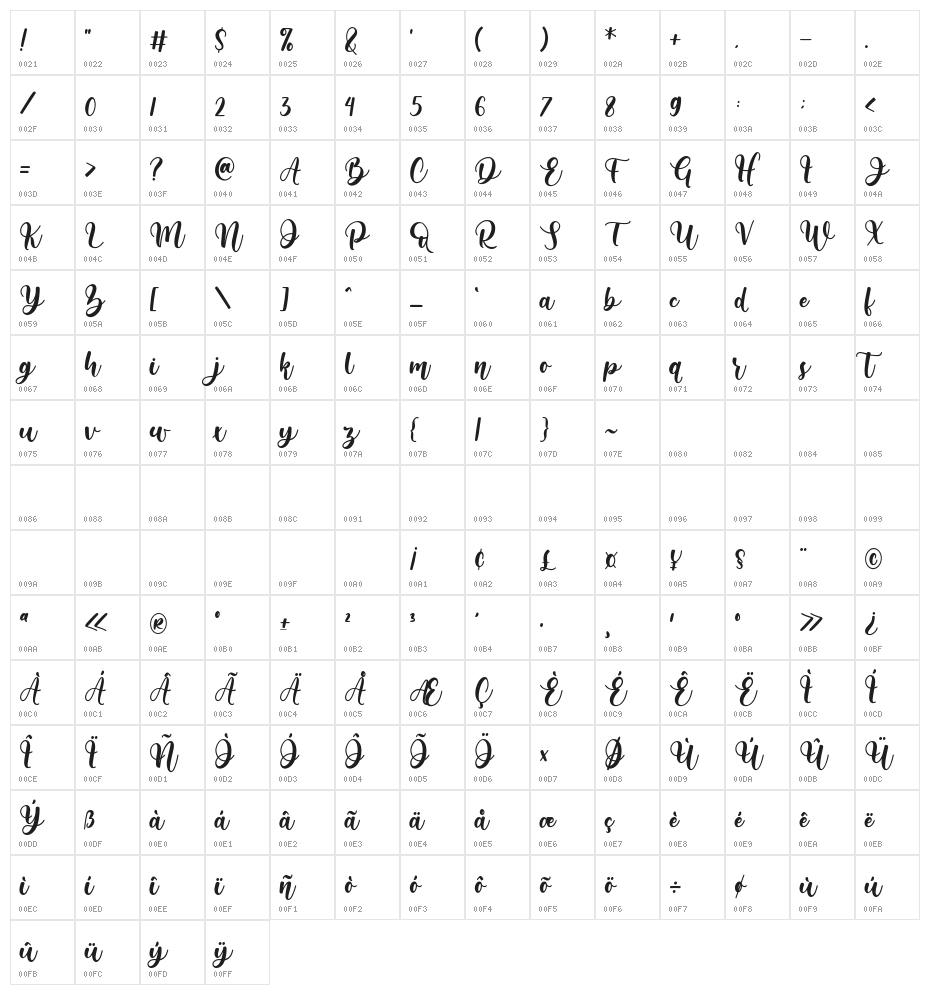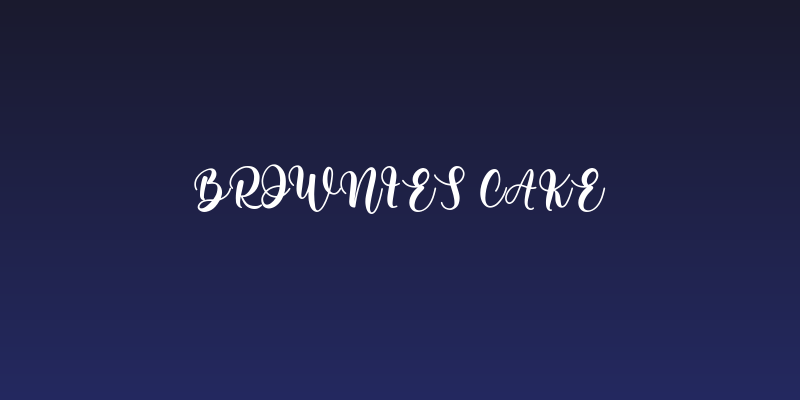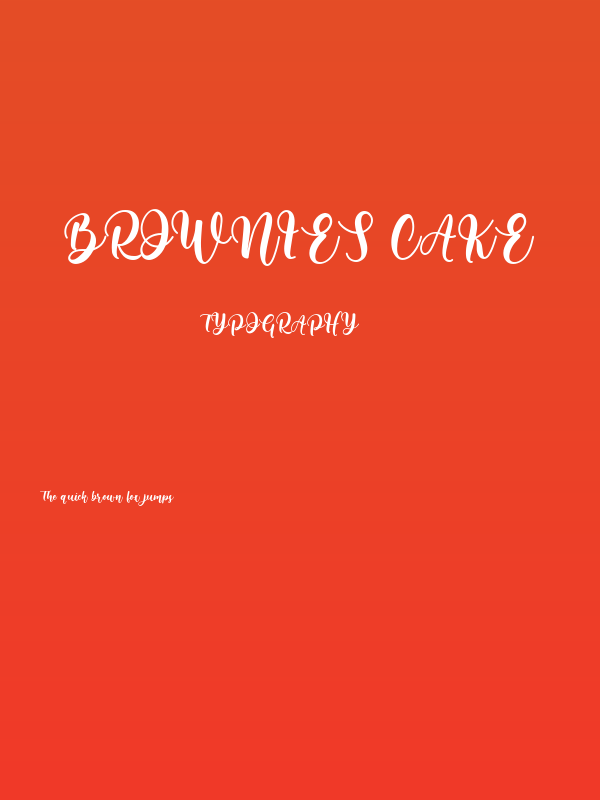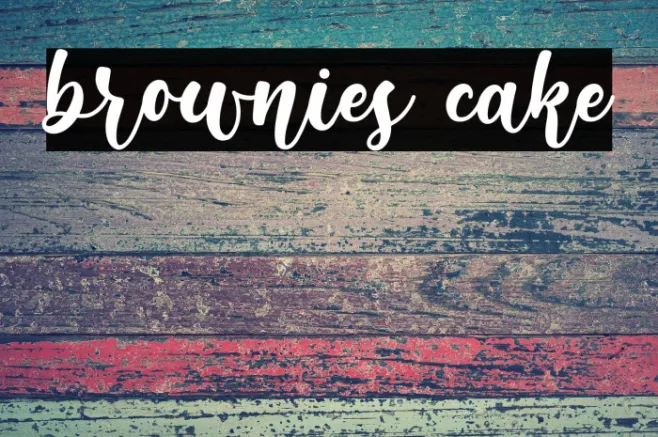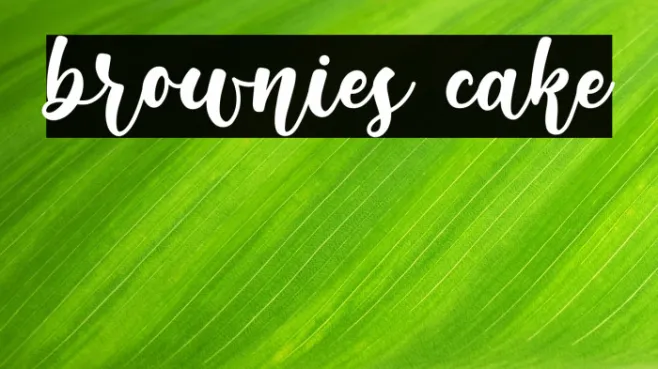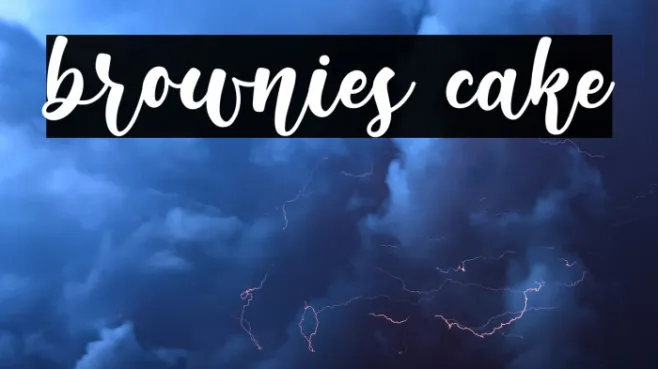
brownies cake Font
brownies cake Description
This font exudes a playful and elegant script style, characterized by its flowing, cursive letters that mimic the fluidity of handwriting. The uppercase letters are bold and slightly exaggerated, with sweeping curves and loops that add a sense of movement and grace. The lowercase letters maintain a consistent flow, with rounded edges and a harmonious balance between thick and thin strokes. The numerals are clear and distinct, maintaining the same cursive style, which adds a unique touch to the overall appearance. Special characters are integrated seamlessly, ensuring versatility across various applications. This font's design is both artistic and functional, making it suitable for a wide range of creative projects.
| Proposed Projects | Ideal for wedding invitations, greeting cards, branding projects, and any design that requires a touch of elegance and personality. |